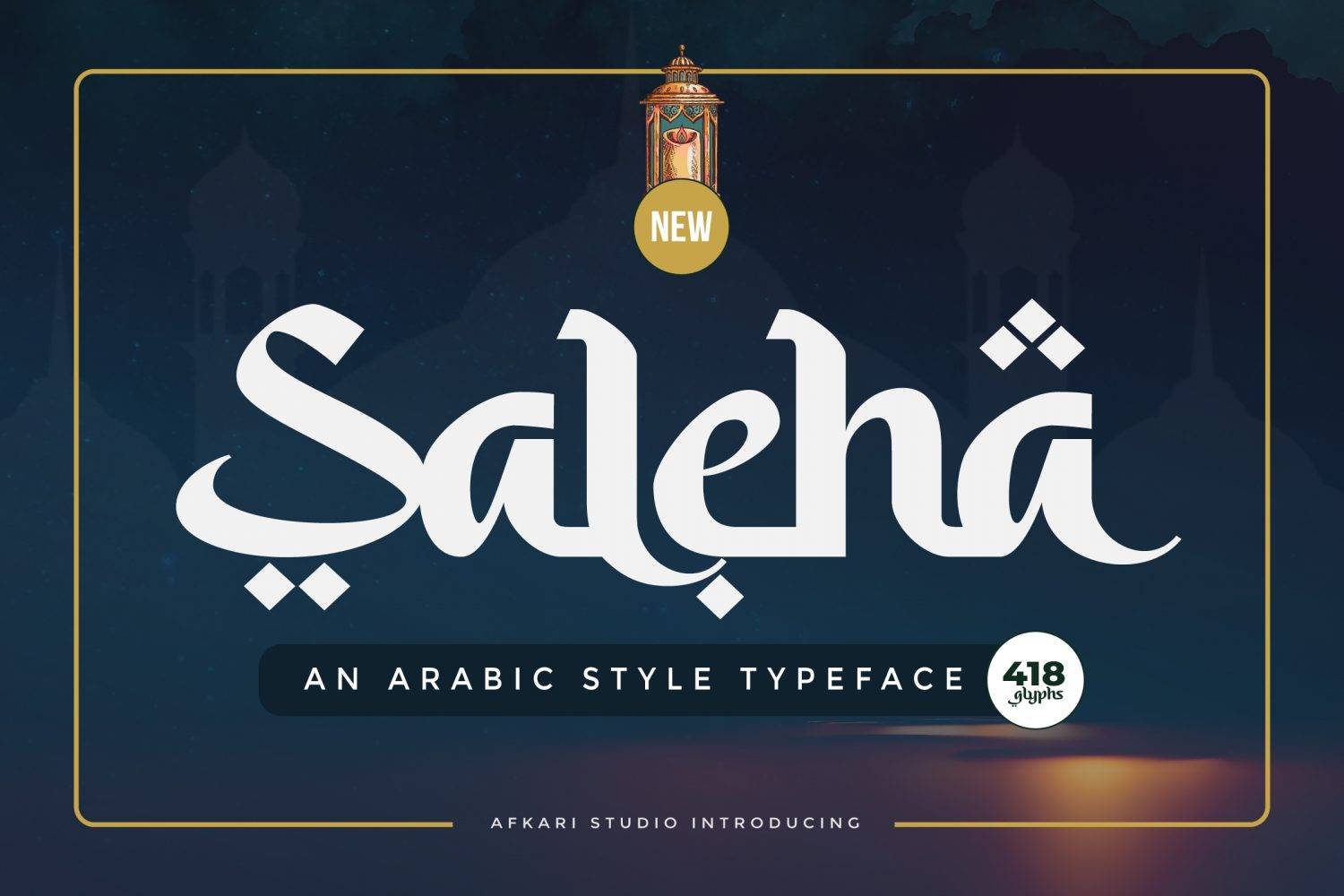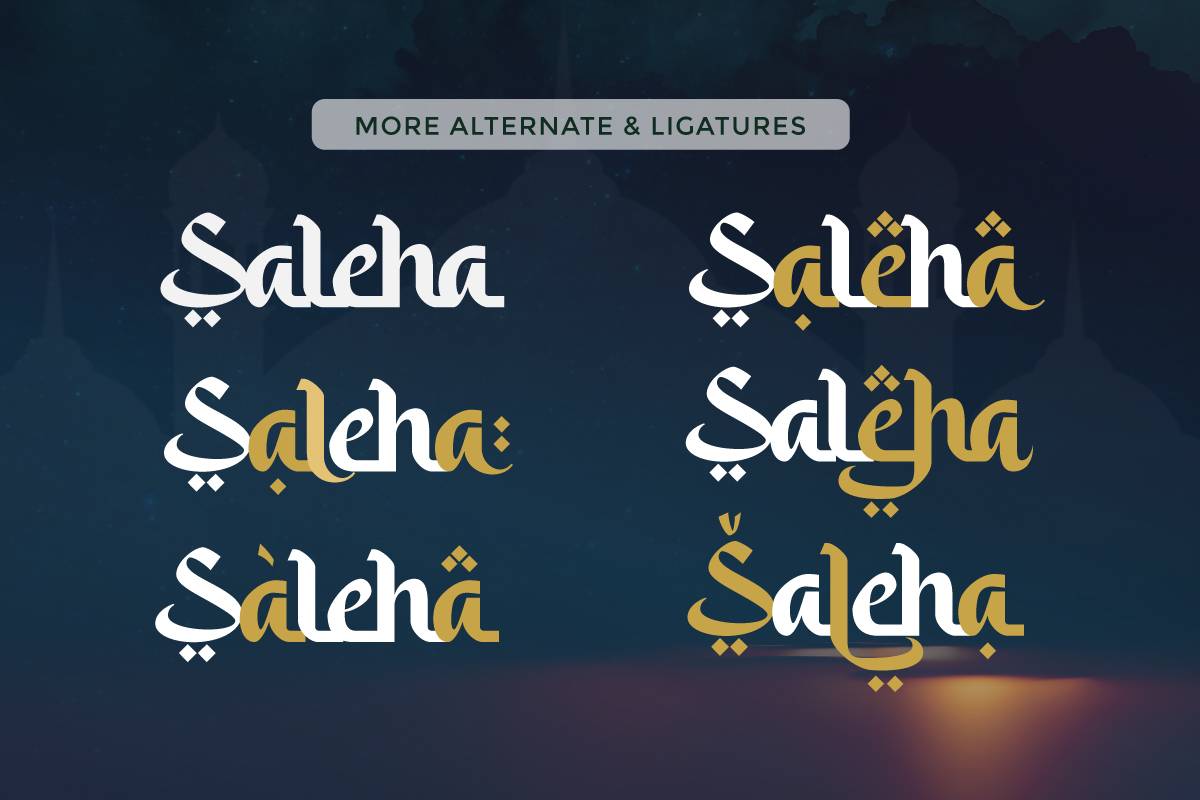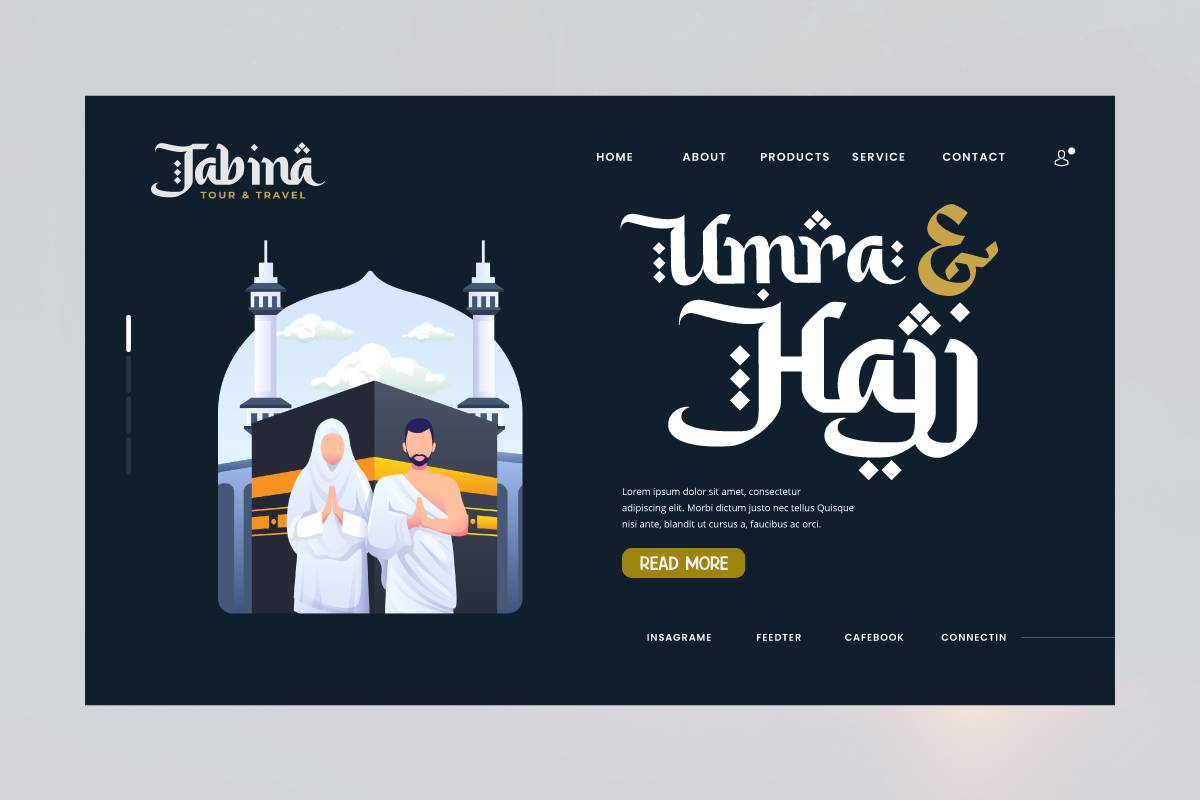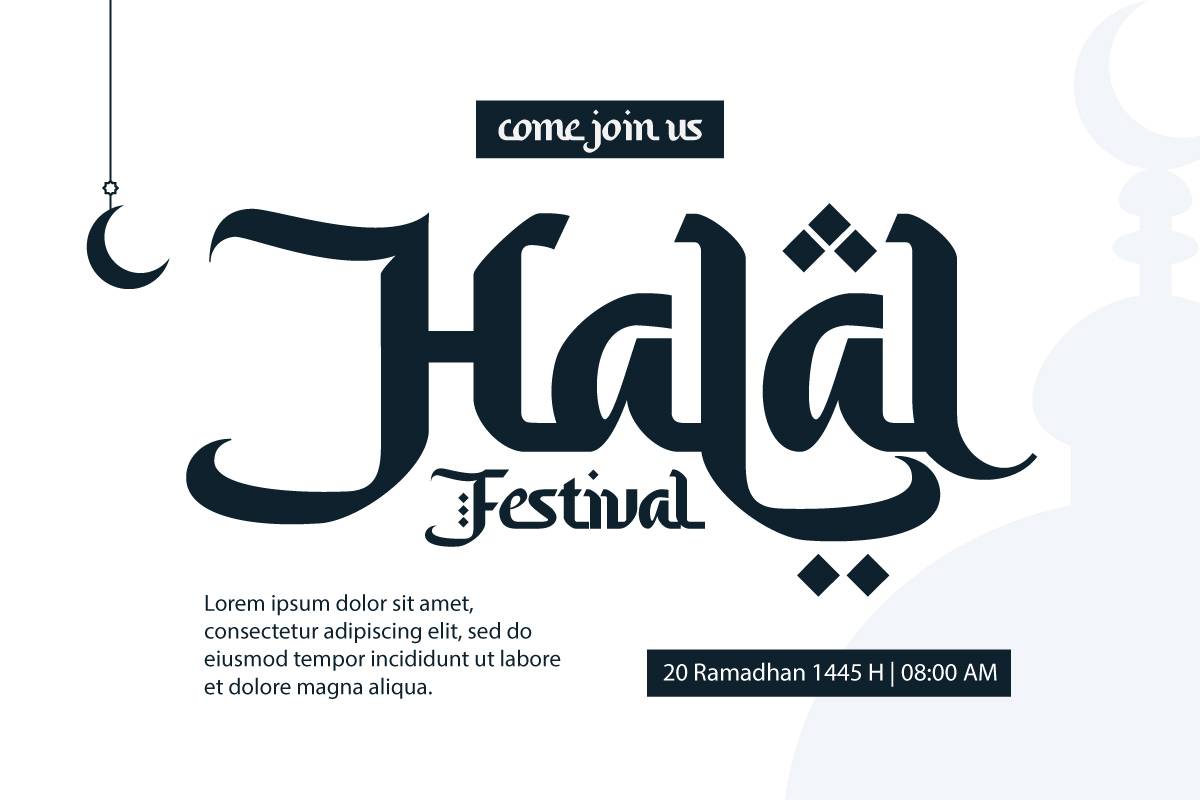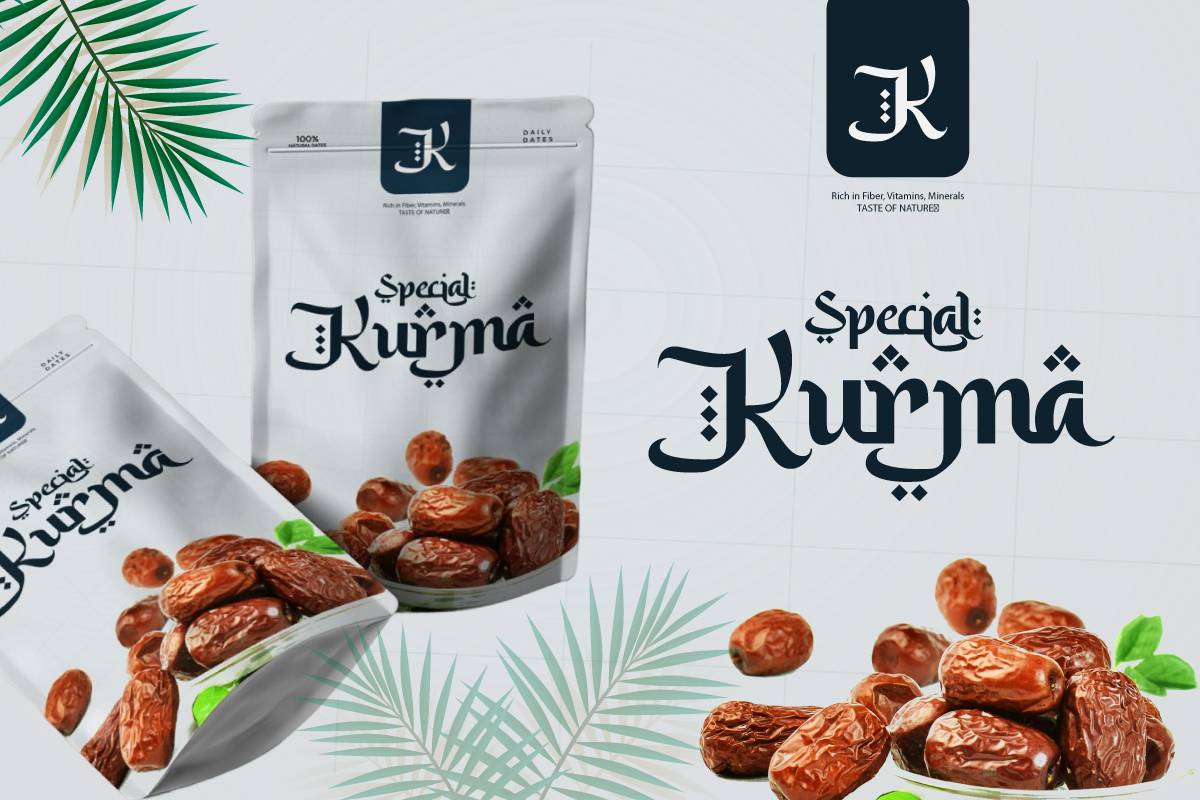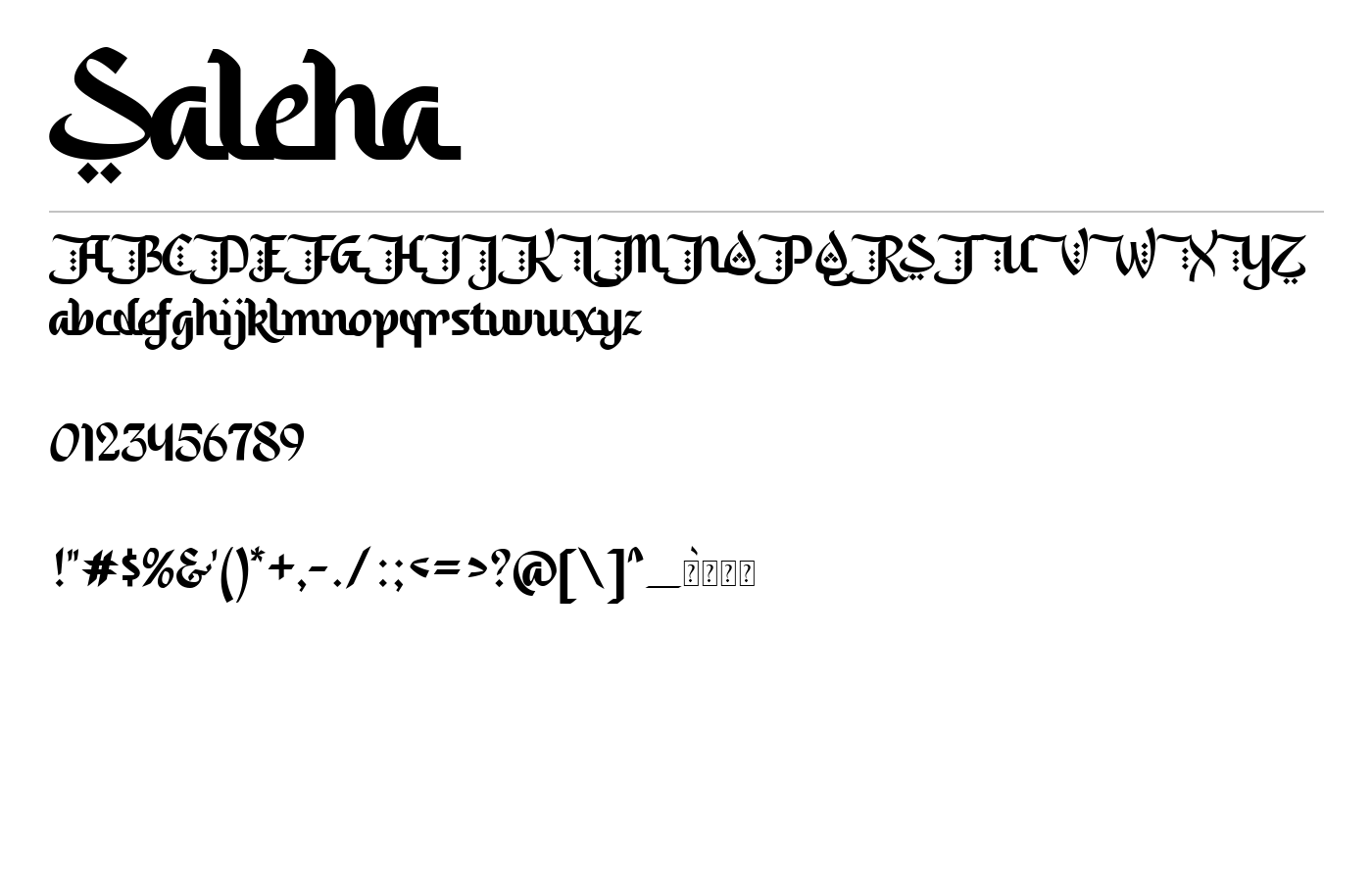
Saleha is a distinctive serif font with a strong calligraphic influence, featuring bold, thick strokes and sharp, decorative details that give it a unique, artistic flair. Its ornate uppercase letters and flowing lowercase forms evoke a vintage, sophisticated elegance, making it well suited for creative logos, luxury branding, and eye-catching headlines. This font shines in projects that aim to convey tradition and style with a touch of refined drama.
Saleha Font
| Designer | Afkari Studio |